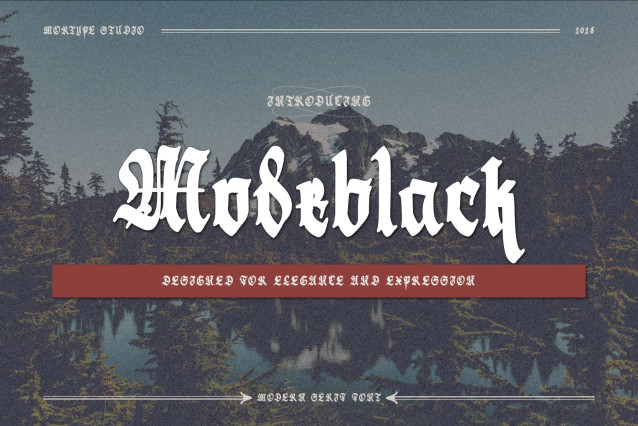
Modeblack Blackletter Font
Modeblack Blackletter is a bold, ultra-realistic blackletter font. This unique look will appeal to a variety of craft projects, from letterheads and titles to stationery.